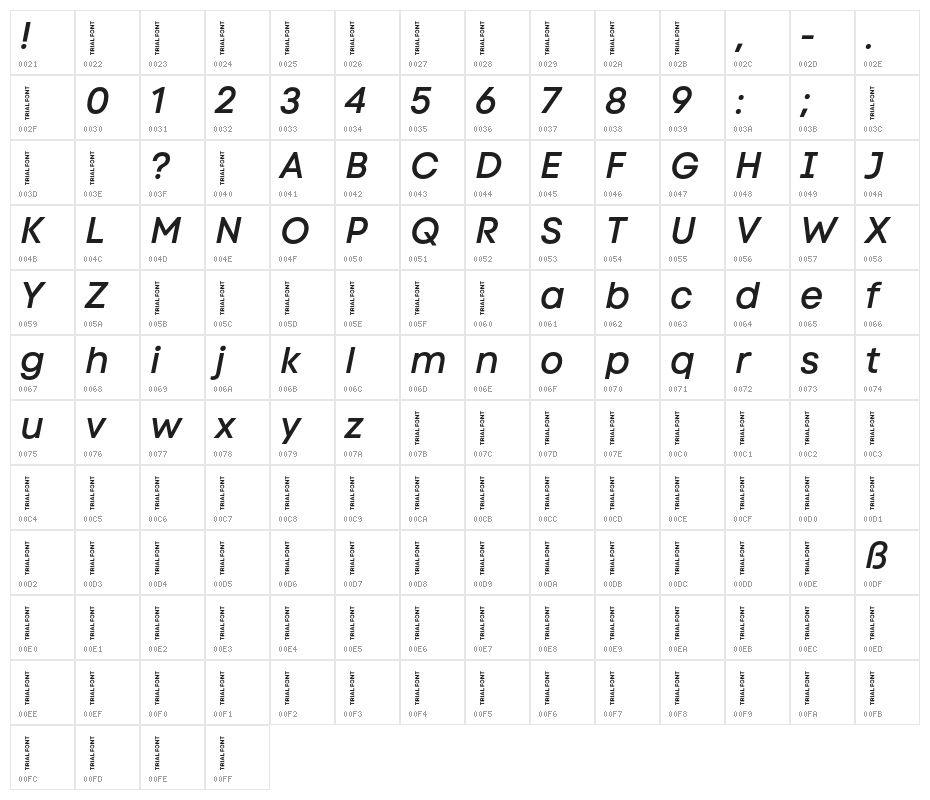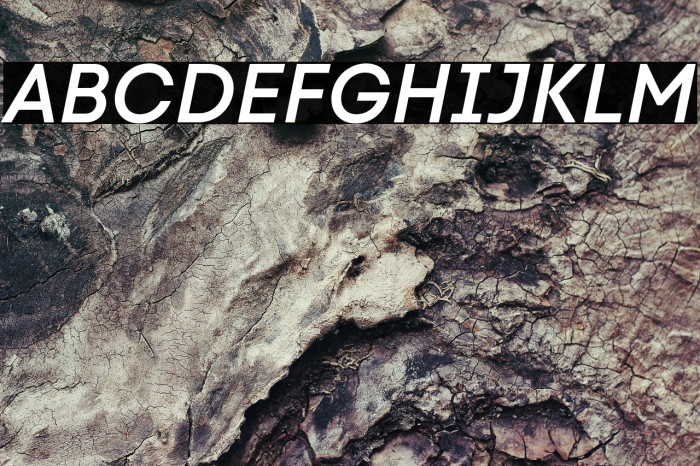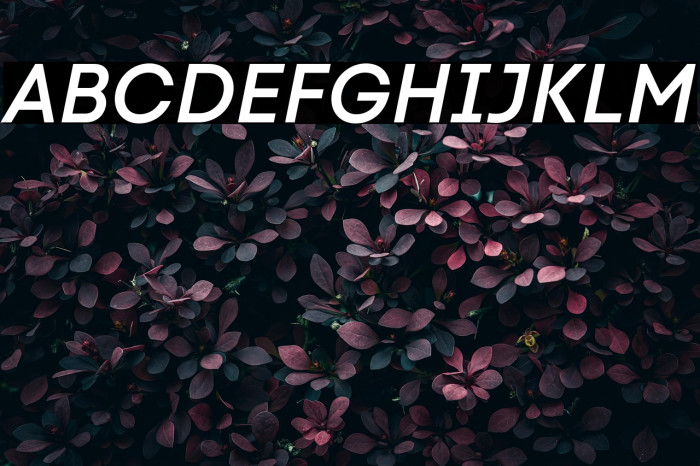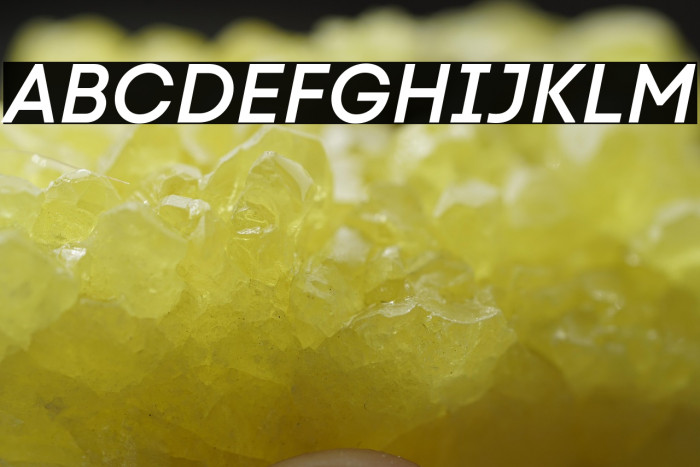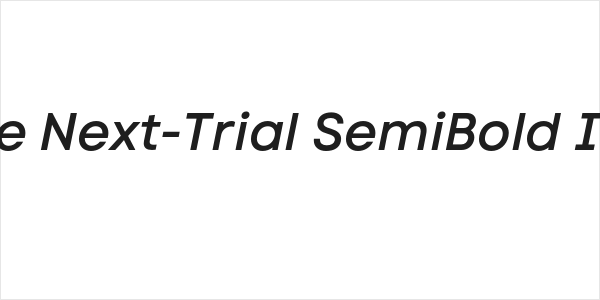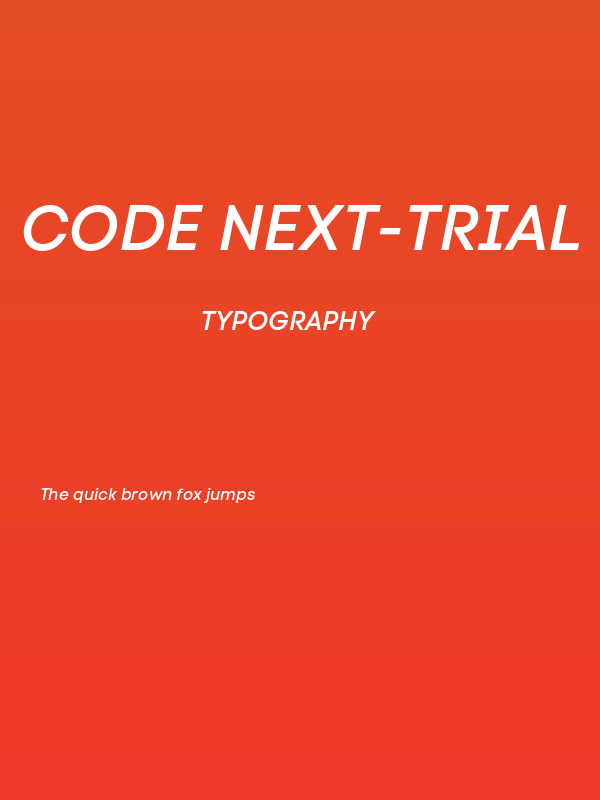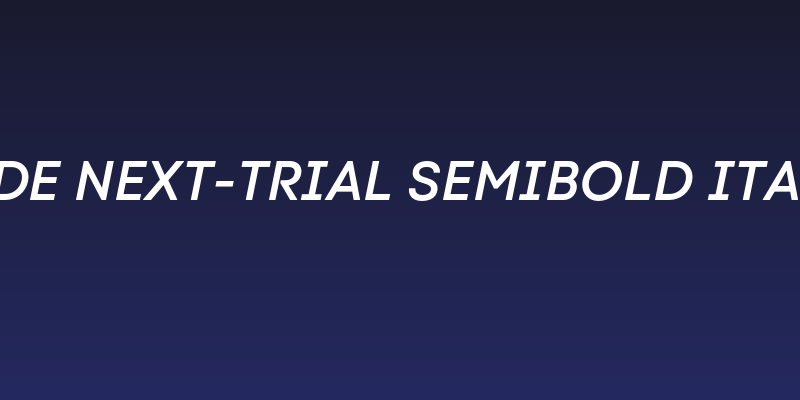
Code Next-Trial SemiBold Italic Font
Code Next-Trial SemiBold Italic Description
This font features a sleek, modern design with a semi-bold weight and italic style. The characters are slightly slanted, giving a dynamic and forward-moving appearance. The strokes are consistent, with a medium contrast that maintains readability while adding a touch of elegance. The overall design is clean and minimalistic, making it suitable for contemporary projects. The spacing between characters is normal, ensuring clarity and legibility across various applications.
| Use Case | Headlines, Logos, Digital Media |
| Proposed Projects | Ideal for branding, advertising, and digital media projects where a modern and dynamic look is desired. |